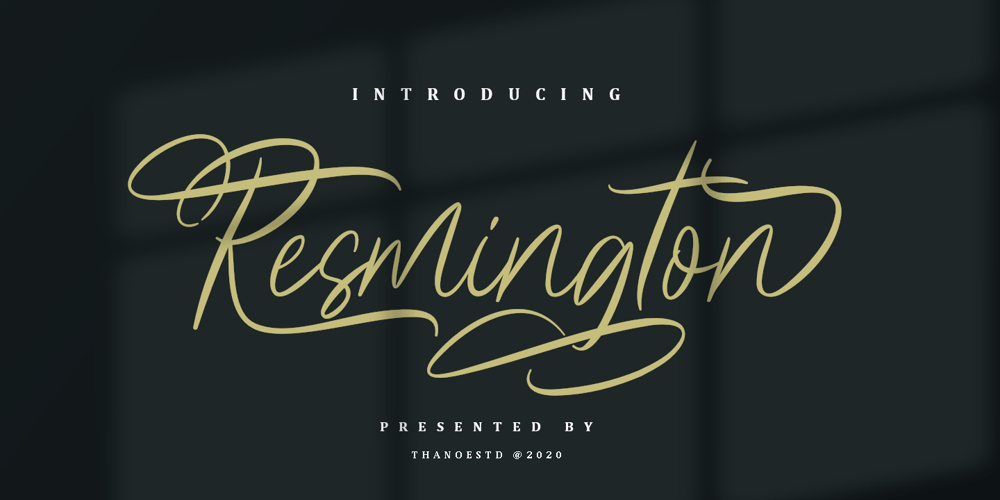
Resmington
Resmington font
Resmington Font Family was designed by Taupiq Nuzuli and published by Thanoestd. Resmington contains 1 styles and family package options. Introduction, Resmington Script, a beautiful script typeface with unique alternates and swashes. This font perfectly made to be applied especially in logo, and the other various formal forms such as invitations, labels, logos, magazines, books, greeting / wedding cards, packaging, fashion, make up, stationery, novels, labels or any type of advertising purpose.We highly recommend using a program that supports OpenType features and Glyphs panels like many of Adobe apps and Corel Draw, so you can see and access all Glyph variations.